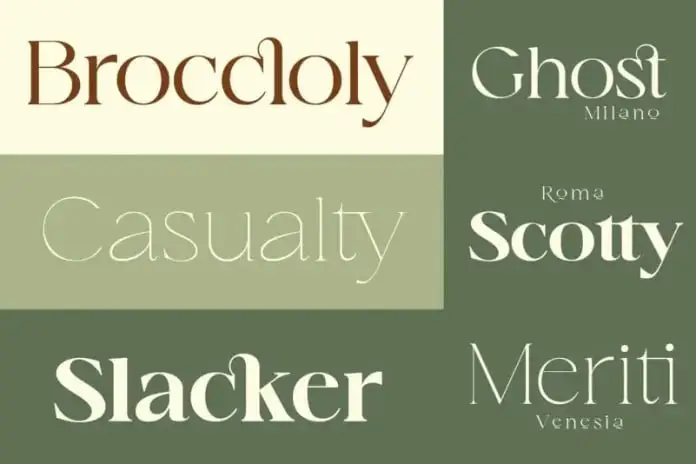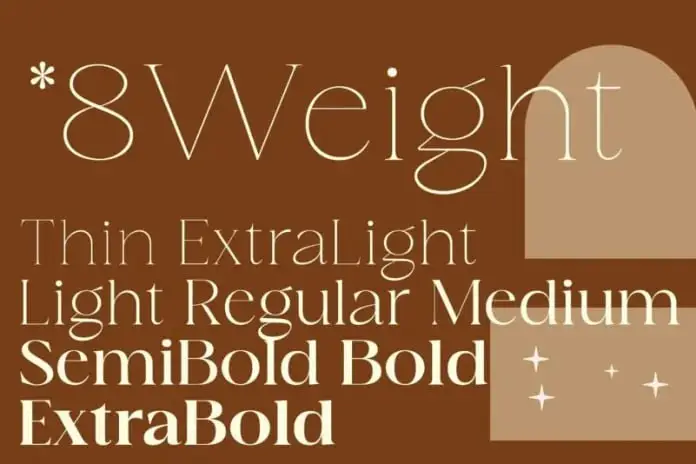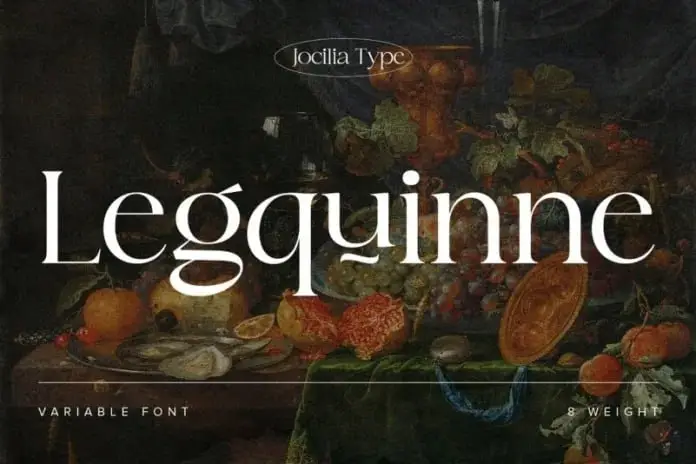
Introducing the Legquinne Font by Jolicia Type, a beautifully crafted typeface that combines elegance with modernity. This font features a unique blend of serif and sans-serif styles, making it suitable for various design projects.
Legquinne comes in multiple weights, allowing for versatility in your designs. It is available in OTF and TTF formats, ensuring compatibility across various platforms.
Legquinne is perfect for branding, logos, web design, print materials, and user interfaces. Its distinctive style will add a touch of sophistication to any project.